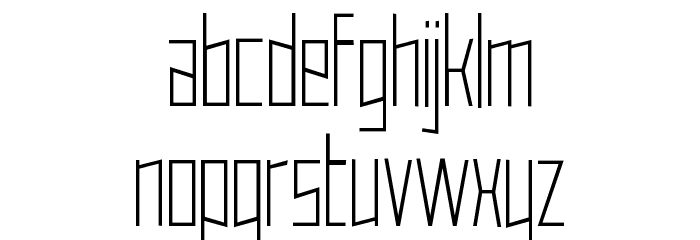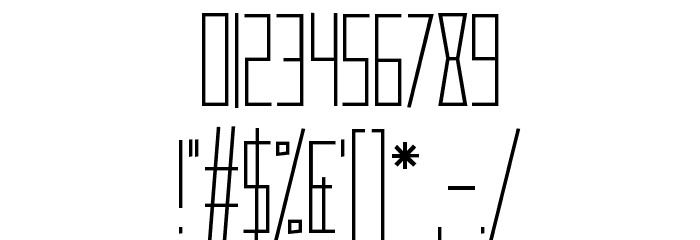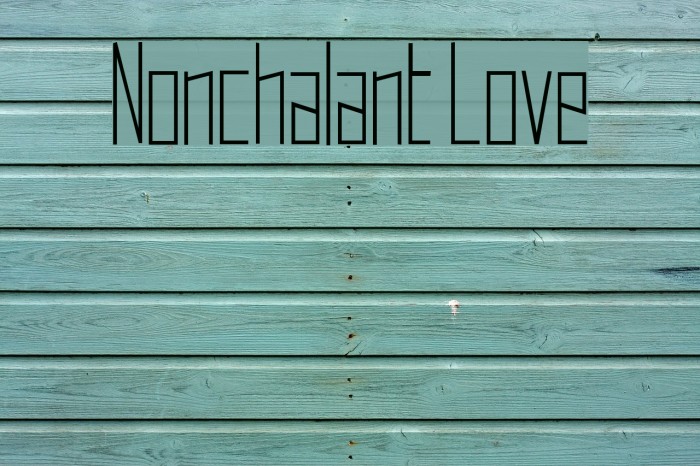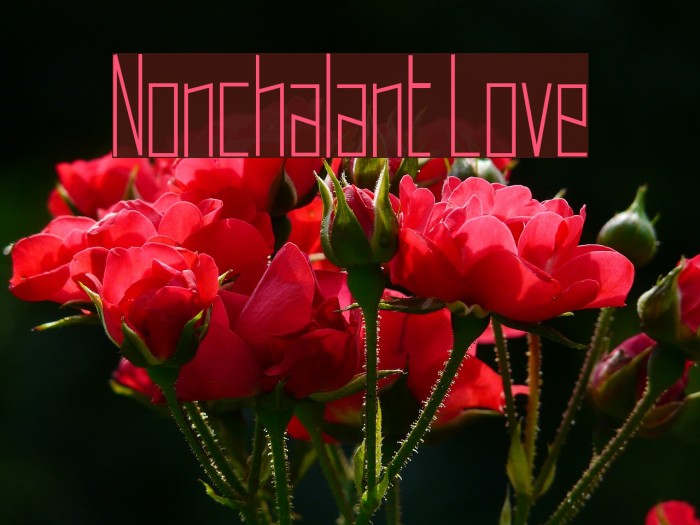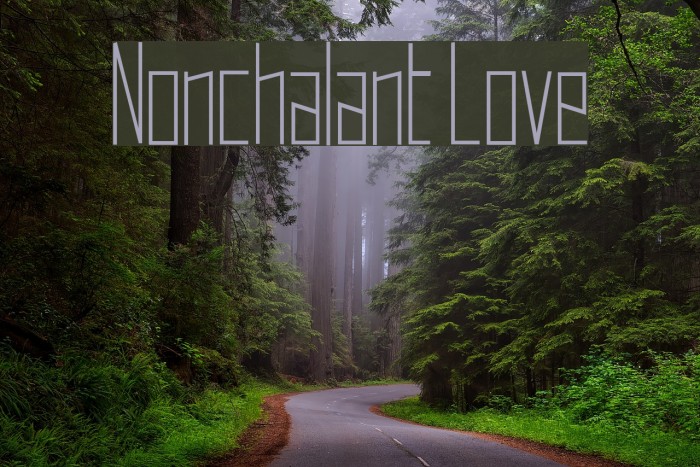
Nonchalant Love Font
This font features a tall, narrow design with a modern and minimalist aesthetic. The characters are constructed with clean, straight lines and sharp angles, giving it a geometric and structured appearance. The uppercase and lowercase letters maintain a consistent height, contributing to its uniform look. The numbers and special characters follow the same design principles, ensuring a cohesive style throughout. Its simplicity and clarity make it suitable for various design applications where a contemporary and sleek look is desired.
A tall, narrow font with a modern, geometric design.